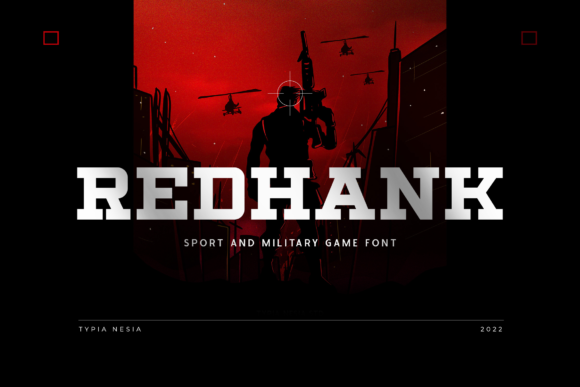
Welcome to the world of Redhank, the masterful slab serif font family that embodies the essence of music and speed. Redhank is the ultimate choice for passionate musicians, racing enthusiasts, and creative professionals seeking to make a bold statement.
Redhank's distinctive style, inspired by the dynamic energy of music and the exhilaration of racing, captivates the senses. Its meticulously crafted letterforms, with their sharp angles and confident curves, evoke a sense of power and movement. Each glyph dances across the page, creating a visual symphony that resonates with energy and passion.
Immerse yourself in the world of music with Redhank. Its bold strokes and rhythmic flow perfectly capture the essence of musical expression. Whether you're designing a concert poster, album cover, or simply adding a touch of musical flair to your creative projects, Redhank will elevate your work to new heights.
Transport yourself to the heart of the racetrack with Redhank. Its sleek lines and dynamic curves evoke the thrill of the chase. Create stunning graphics for racing events, car magazines, or automotive branding that exude power and speed. Redhank will fuel your creativity and ignite your passion for the world of racing.
Beyond music and racing, Redhank's versatility knows no bounds. Its striking presence adds a touch of sophistication to logos, branding, and editorial design. Its bold and confident strokes demand attention, making it the perfect choice for headlines, posters, and social media graphics.
Redhank is not just a font; it's an experience. A fusion of art and adrenaline, it ignites the senses and captivates the imagination. Embrace the power of Redhank and embark on a creative journey where passion and precision collide.